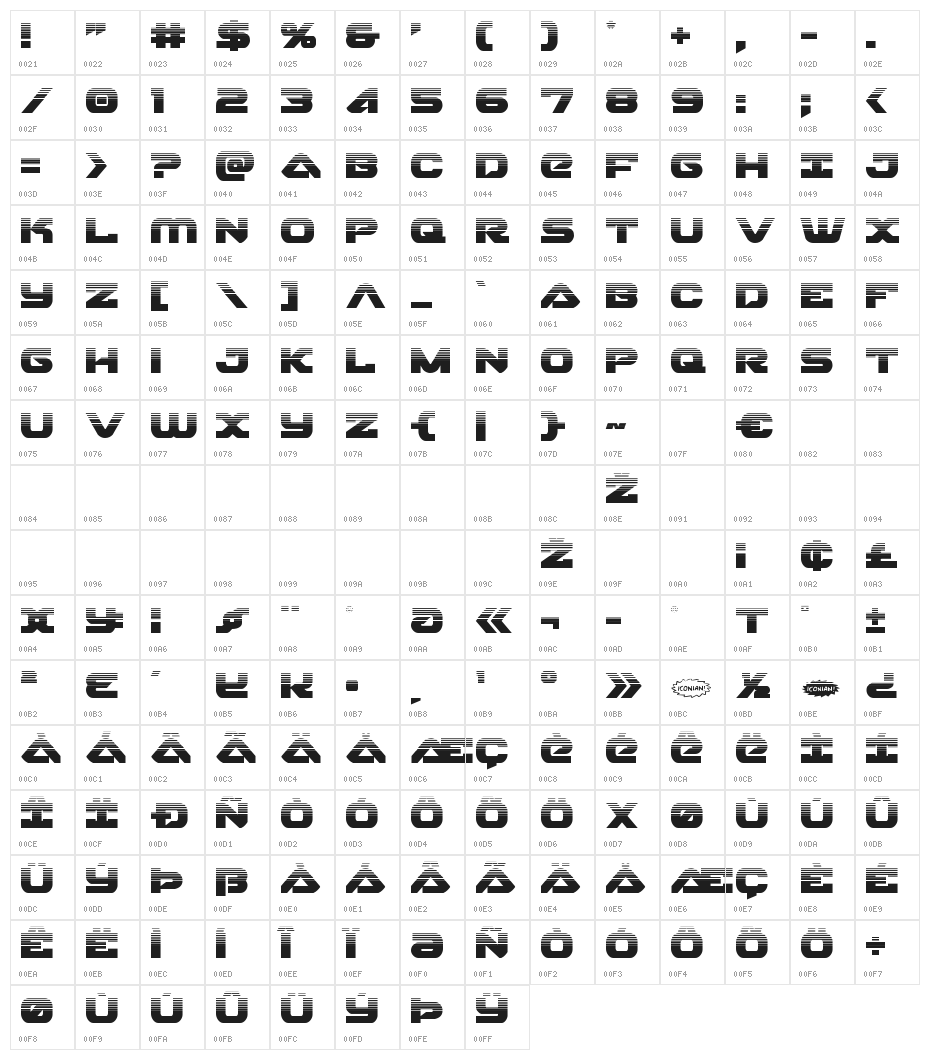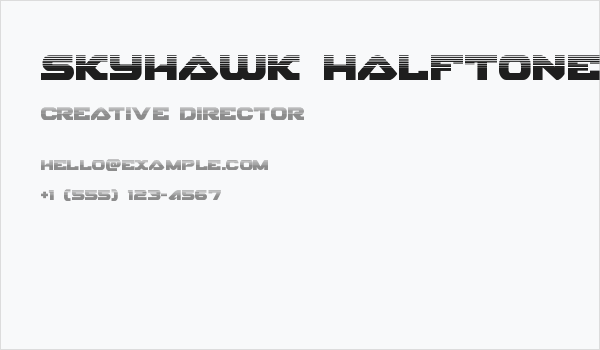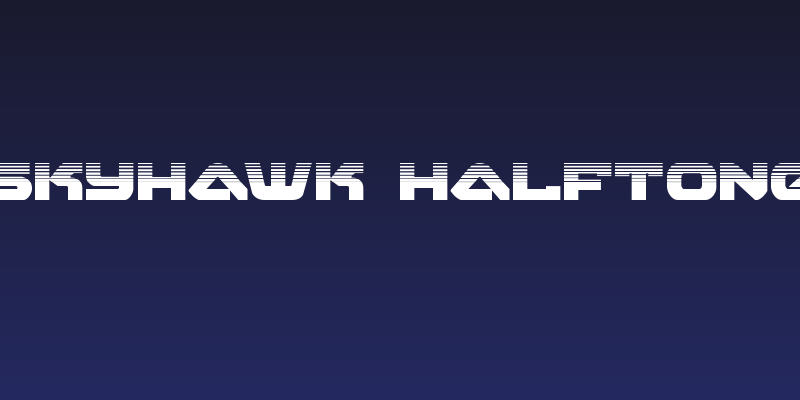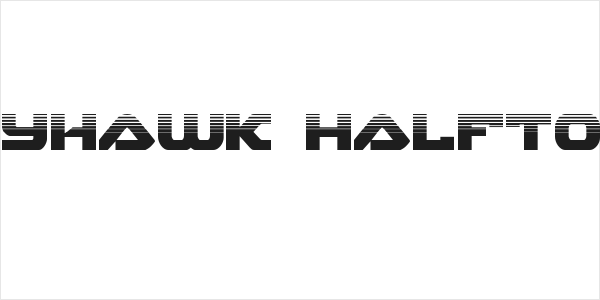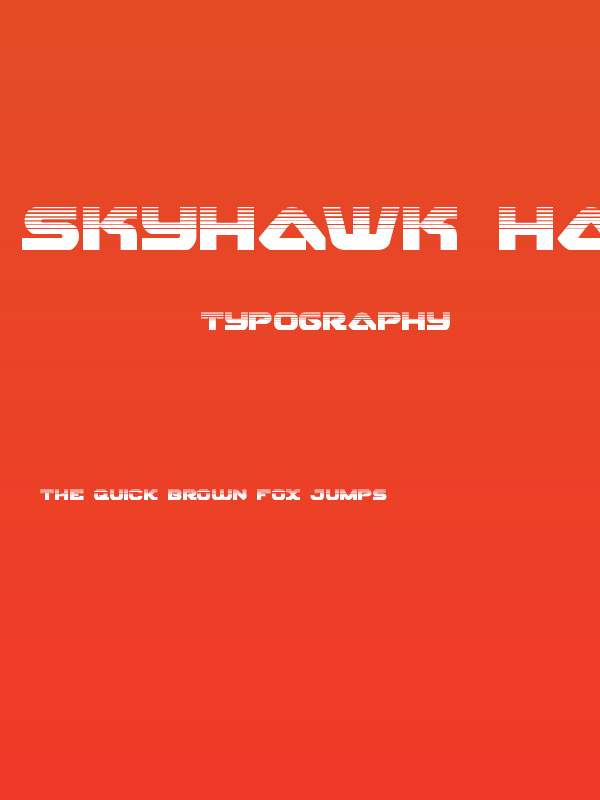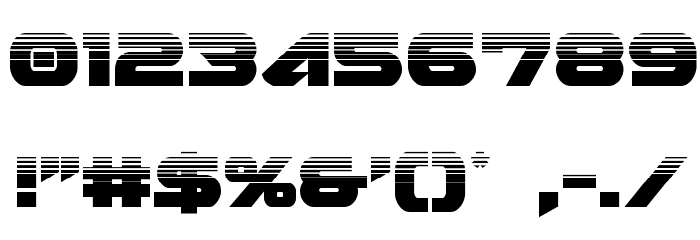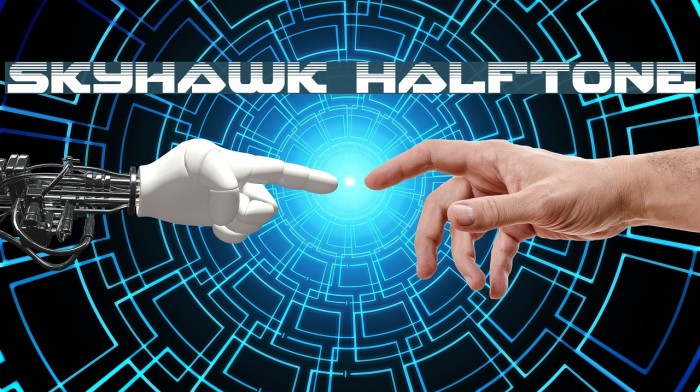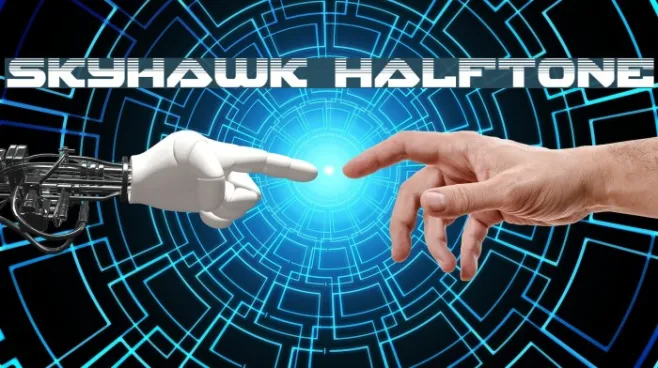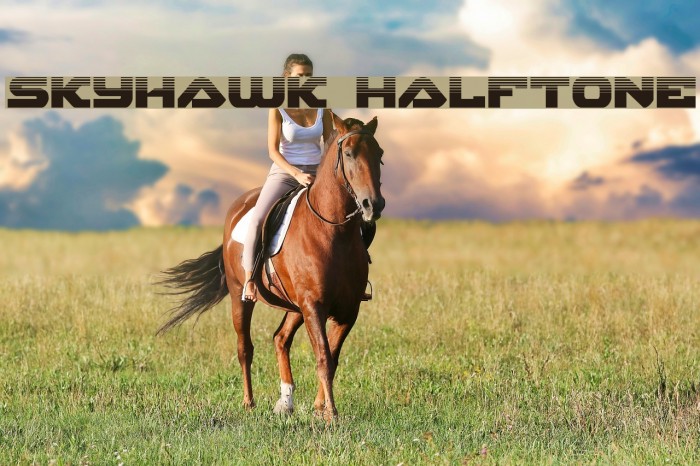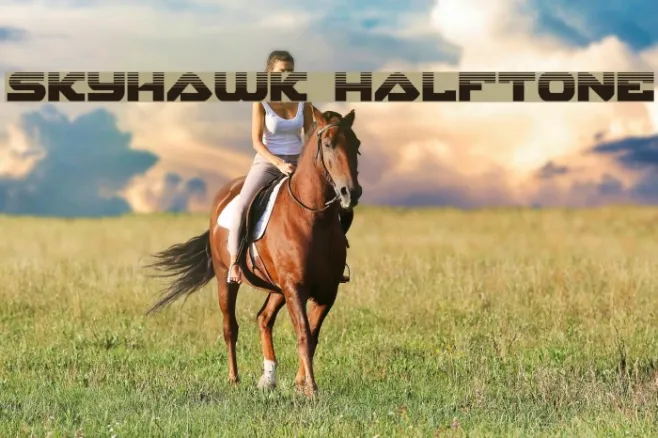
Skyhawk Halftone Font
Skyhawk Halftone Description
This font exhibits a bold and futuristic design with a halftone effect that gives it a unique, digital appearance. The characters are constructed with a series of horizontal lines that create a sense of movement and energy. The uppercase and lowercase letters maintain a consistent style, with sharp angles and geometric shapes. The numbers and special characters follow the same design principles, ensuring a cohesive look across all elements. This font's distinct style makes it stand out, suitable for projects that require a modern and edgy aesthetic.
| Proposed Projects | Ideal for digital art, tech branding, video game titles, and sci-fi themed projects. |